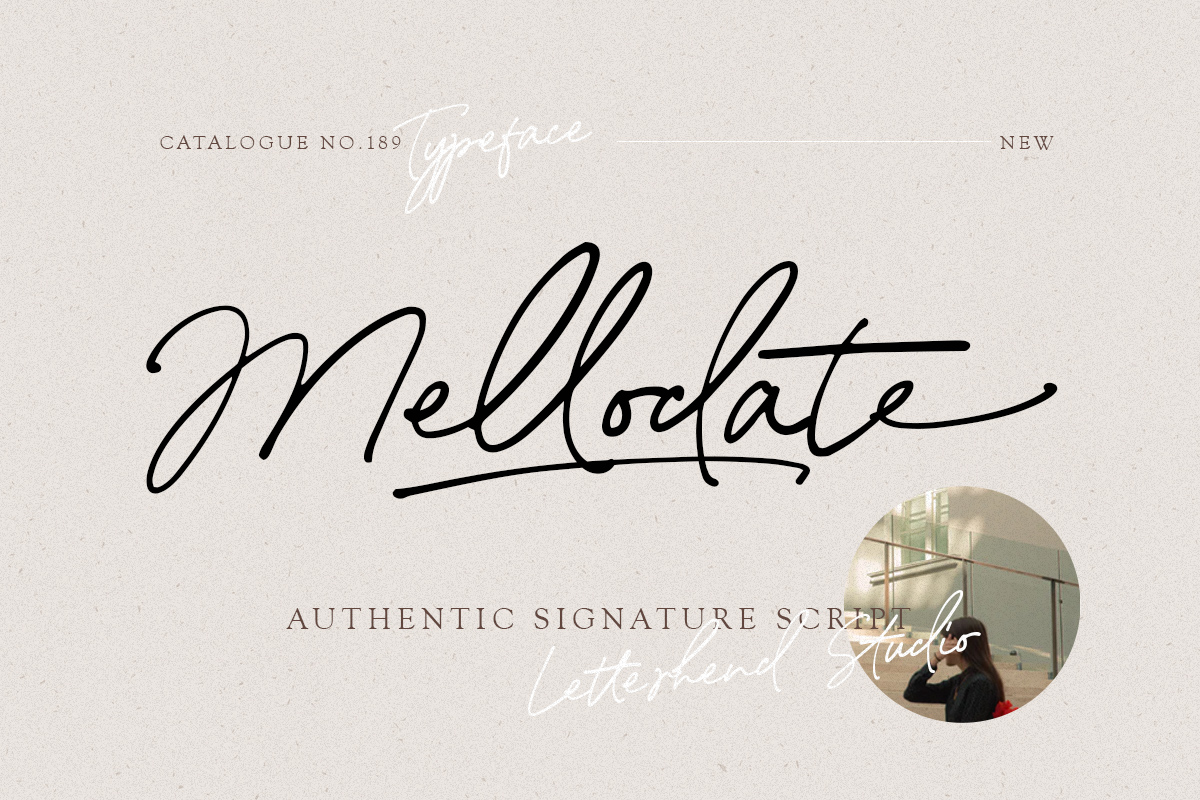
Mellodate Font
This smooth and romantic typeface is perfect for dating app interfaces, wedding planning services, romantic restaurant branding, couple's therapy clinics, anniversary celebration materials, love letter stationery, romantic greeting cards, relationship coaching websites, and intimate event planning that requires a warm, affectionate aesthetic.
Mellodate Font brings excitement to design projects with its gentle, flowing character and romantic warmth that captures the essence of intimate connection and tender moments. The font features soft, rounded letterforms with subtle curves that evoke feelings of comfort, love, and emotional closeness. Its romantic sophistication and gentle appeal make it an exceptional choice for brands that want to communicate intimacy, affection, and heartfelt connection in their personal communications.
The Mellodate Font family includes various romantic styles: Light, Regular, Medium, Bold, Script, Condensed, and Heart versions. Each variant maintains the font's distinctive tender character while providing designers with complete flexibility for creating intimate branding systems. The family also features romantic ornaments, heart-inspired decorative elements, love-themed ligatures, and affectionate symbols that enhance the overall romantic aesthetic.
The font's romantic excellence includes carefully balanced soft curves, gentle spacing that creates visual harmony, and subtle variations that prevent mechanical repetition while maintaining emotional warmth. Whether you're designing for relationship services, romantic venues, or intimate celebration materials, this font delivers the heartfelt touch that creates meaningful connections with audiences seeking authentic emotional experiences.